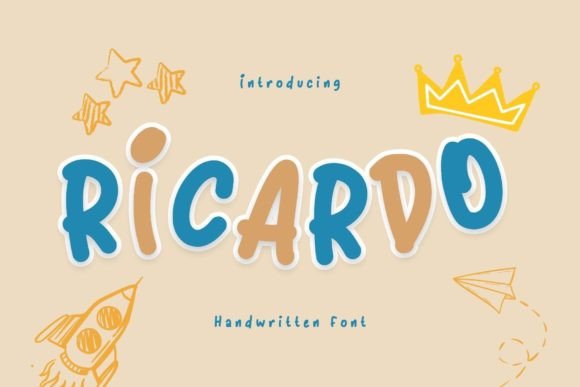
Introducing Ricardo Font: The Quintessential Script Font for Unforgettable Designs
Embark on a typographic adventure with Ricardo Font, a captivating script font brimming with playfulness and authenticity. Crafted with meticulous care by Brown Cupple Fonts, Ricardo is not just a font; it's an artistic expression that brings your creative visions to life.
Unleash your inner artist and let Ricardo's charming strokes dance across your designs. Its whimsical nature adds a touch of delight to blog posts, logos, branding, ads, invitations, greeting cards, planners, photo albums, decorations, and more. Picture your words taking on a life of their own, captivating your audience with their playful elegance.
With Ricardo Font, you'll discover a world of creative possibilities. Its versatility knows no bounds, allowing you to effortlessly create designs that resonate with your unique style. Whether you're a seasoned designer or just starting your creative journey, Ricardo Font is your perfect companion.
Step into a realm where imagination reigns supreme and let Ricardo Font guide you. Its enchanting curves and lively characters will transform your designs into masterpieces that captivate and inspire. Let your creativity soar as you witness the magic of Ricardo Font unfold before your eyes.